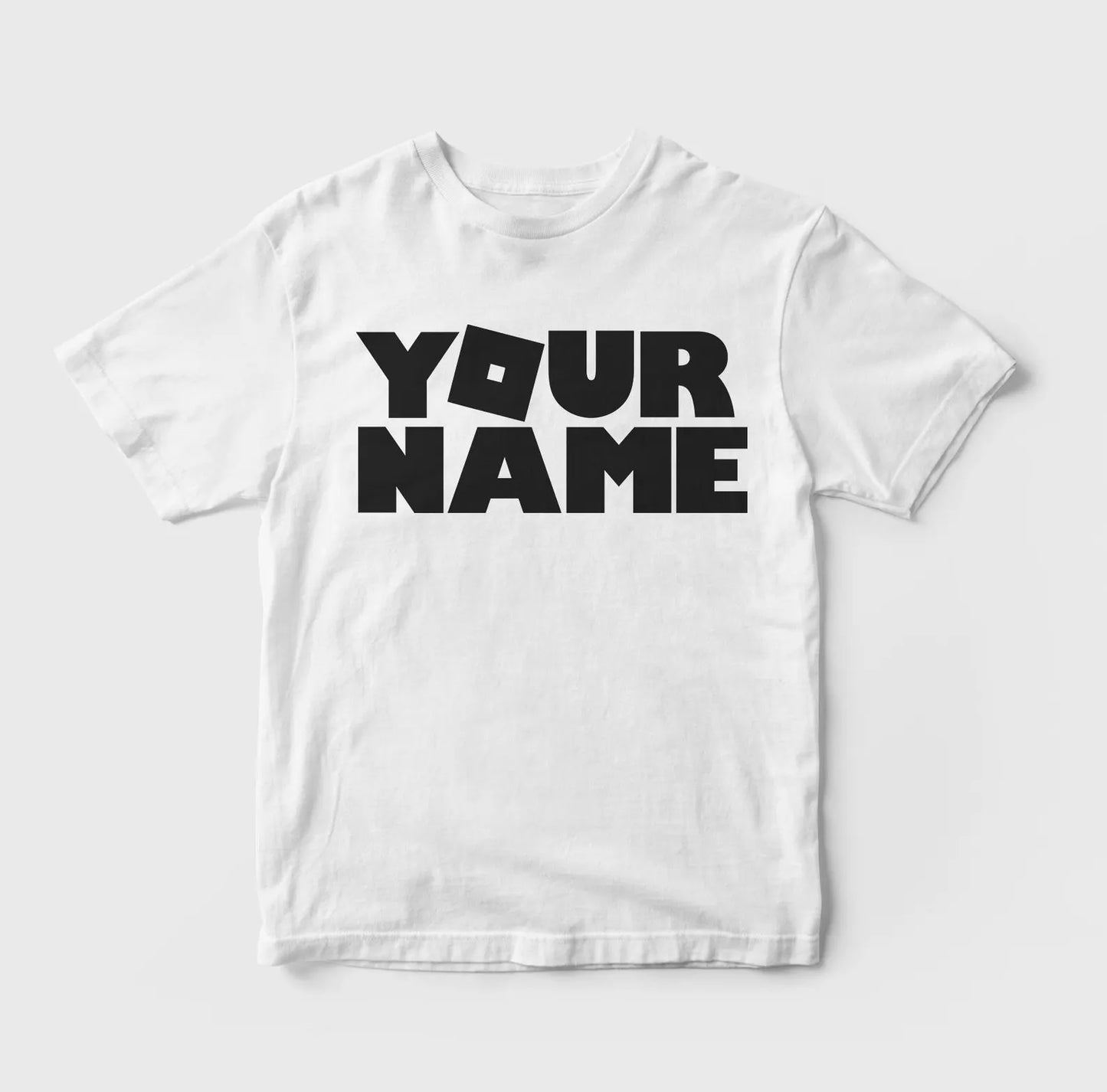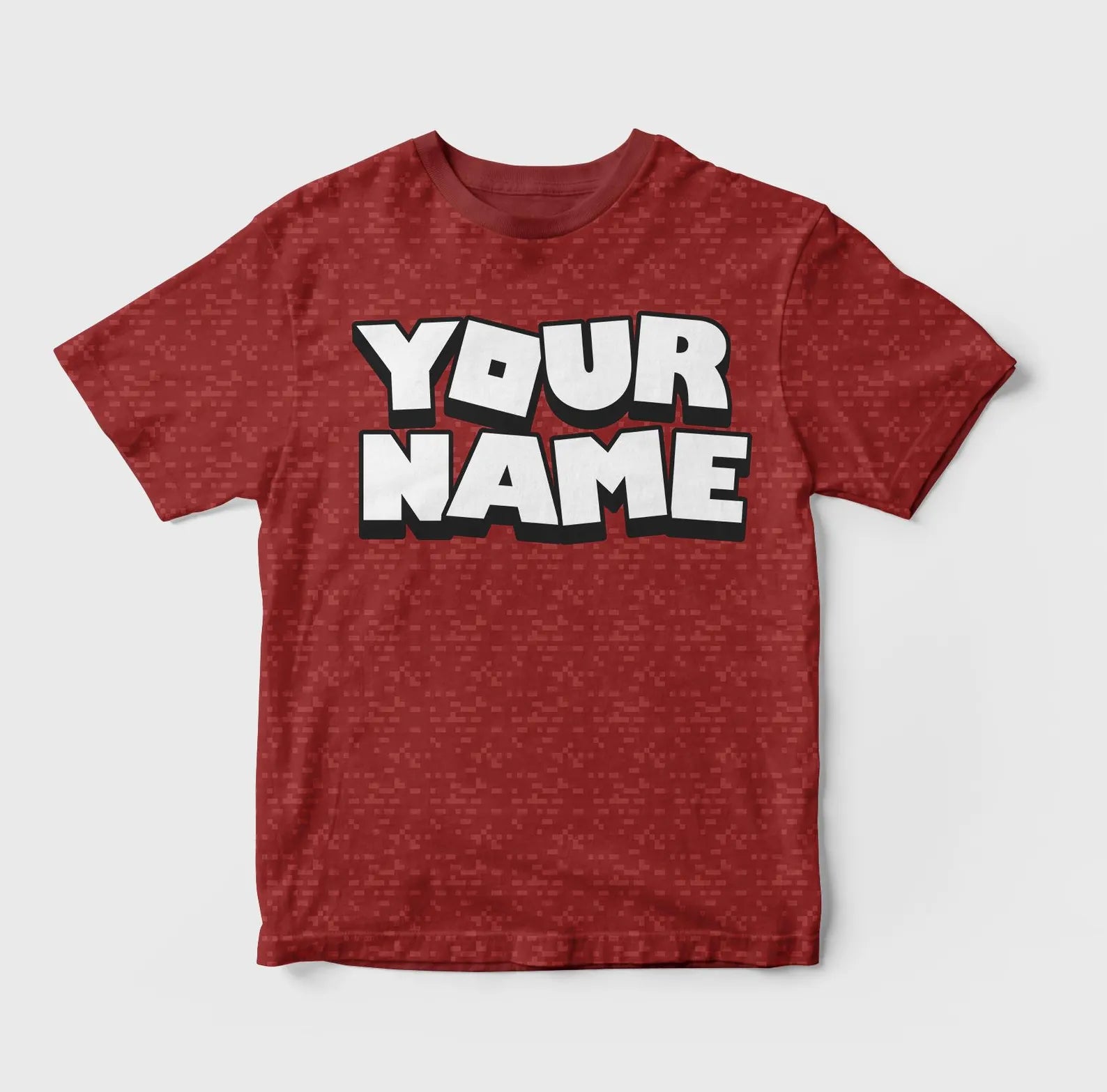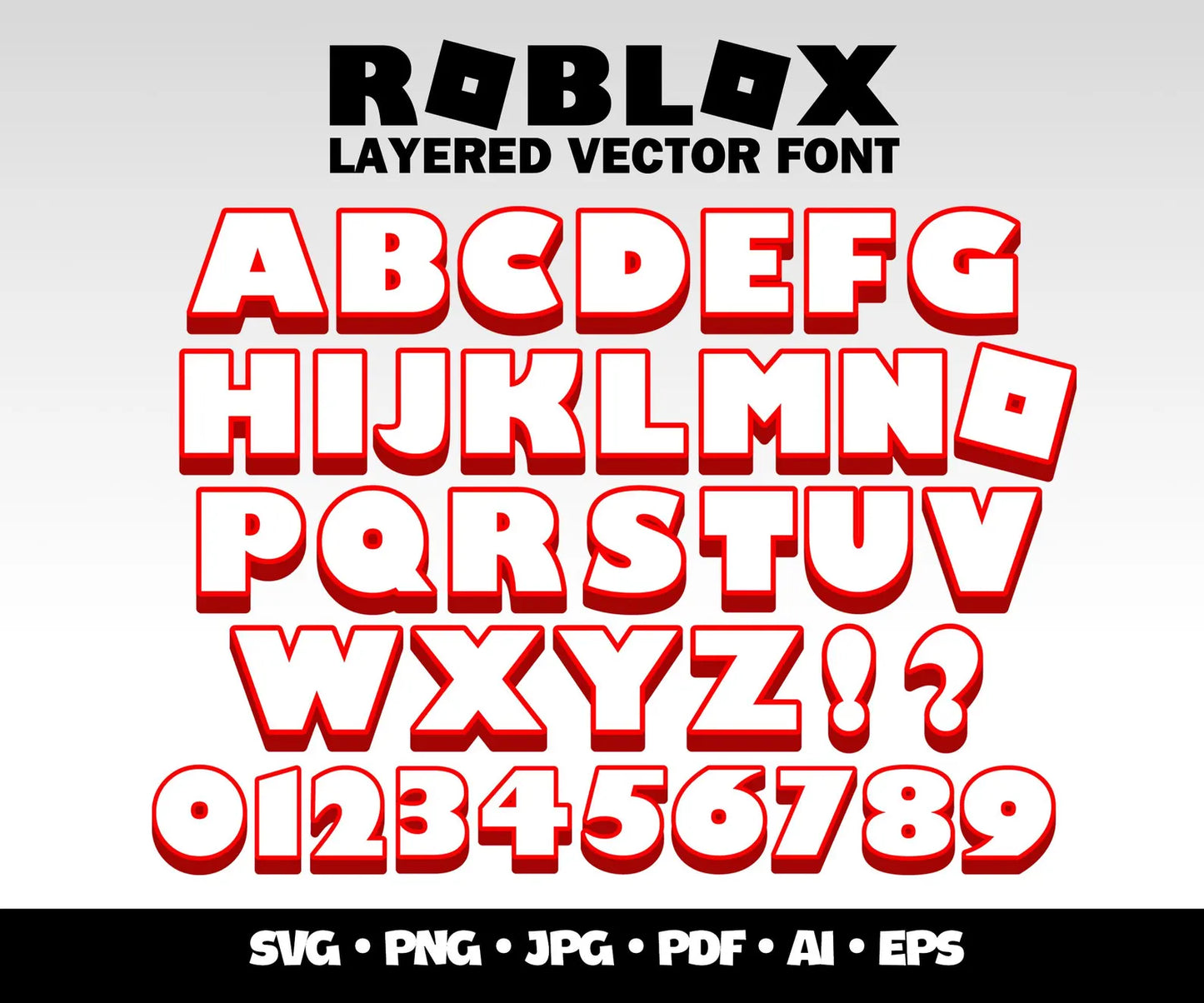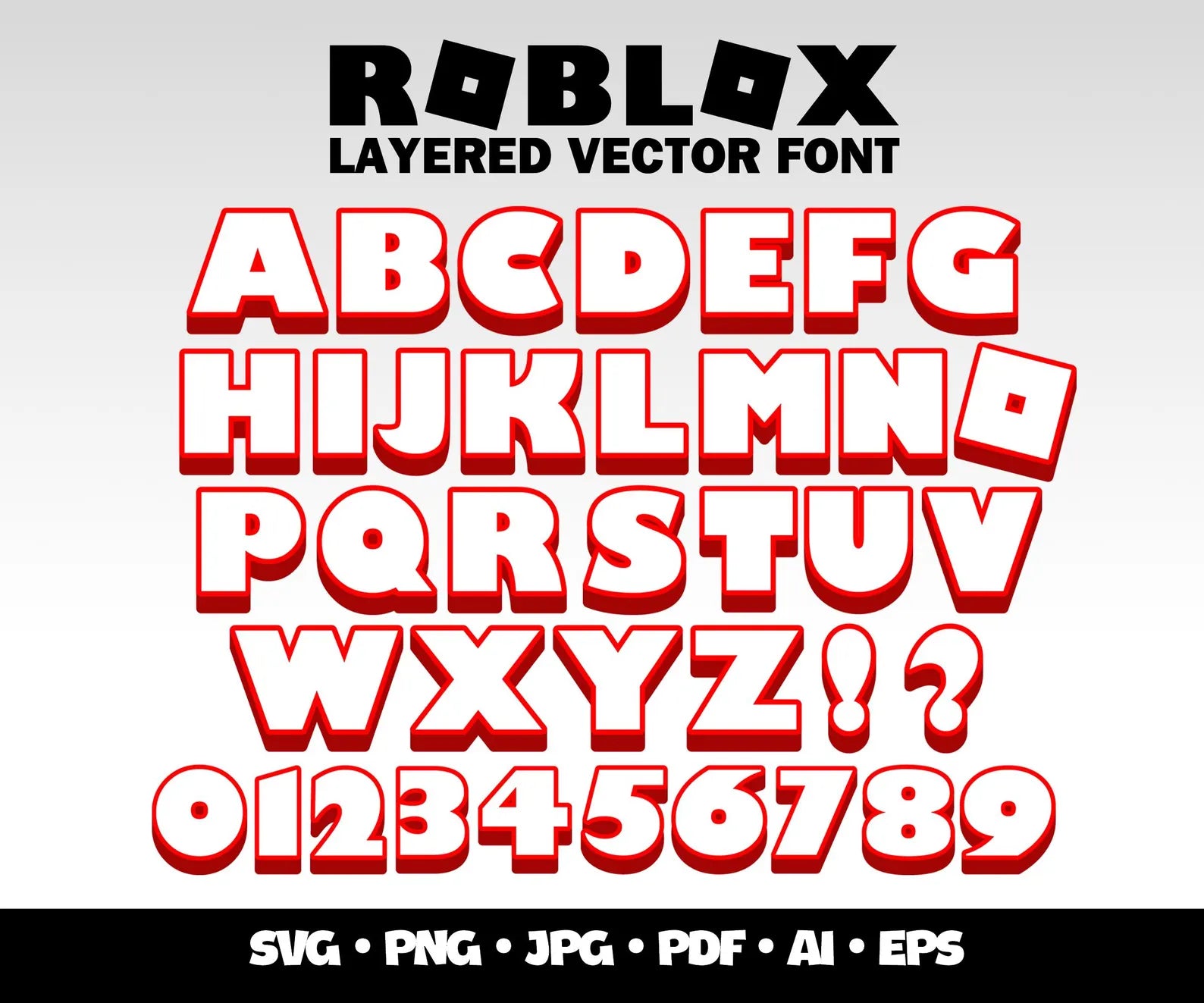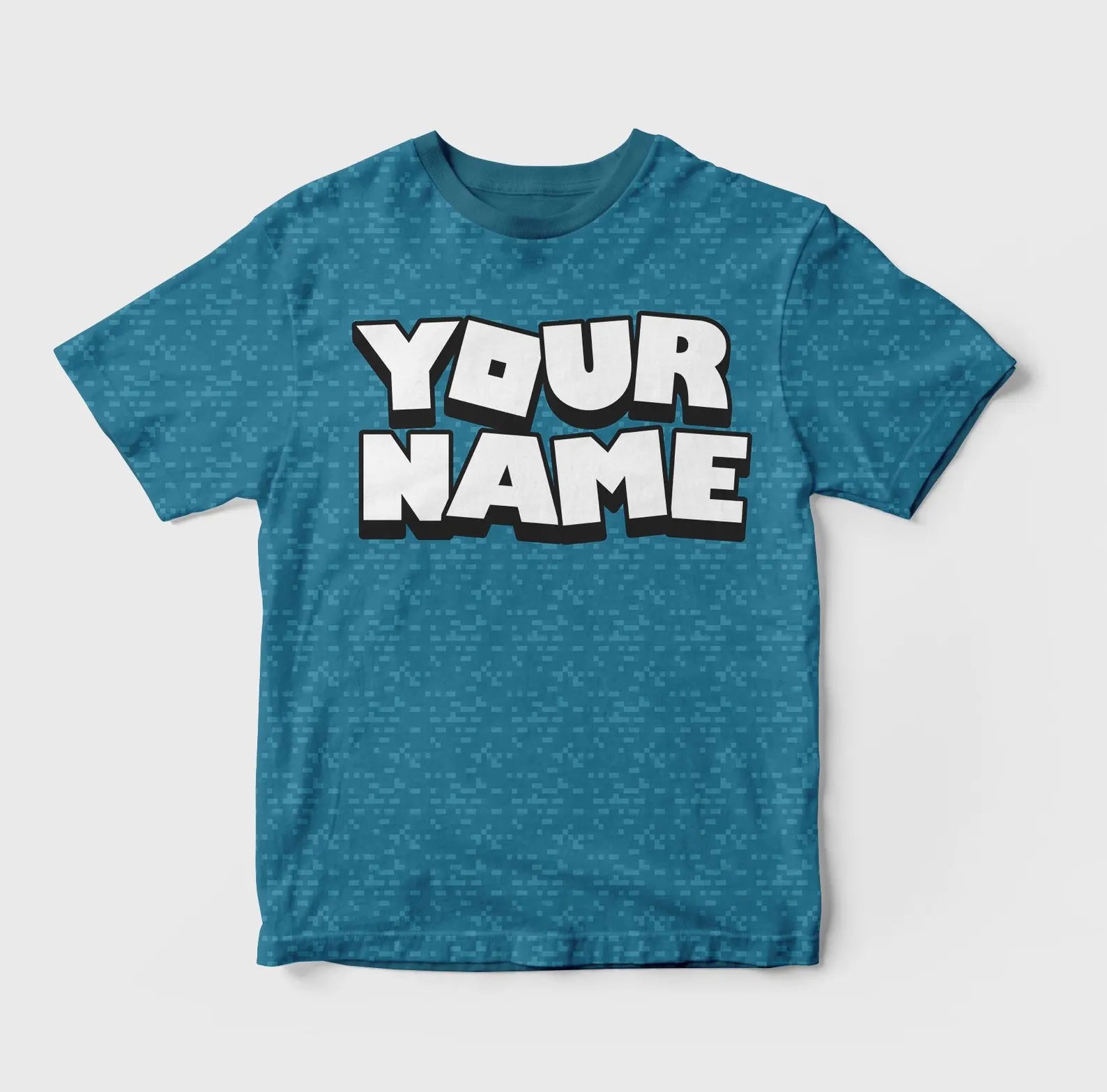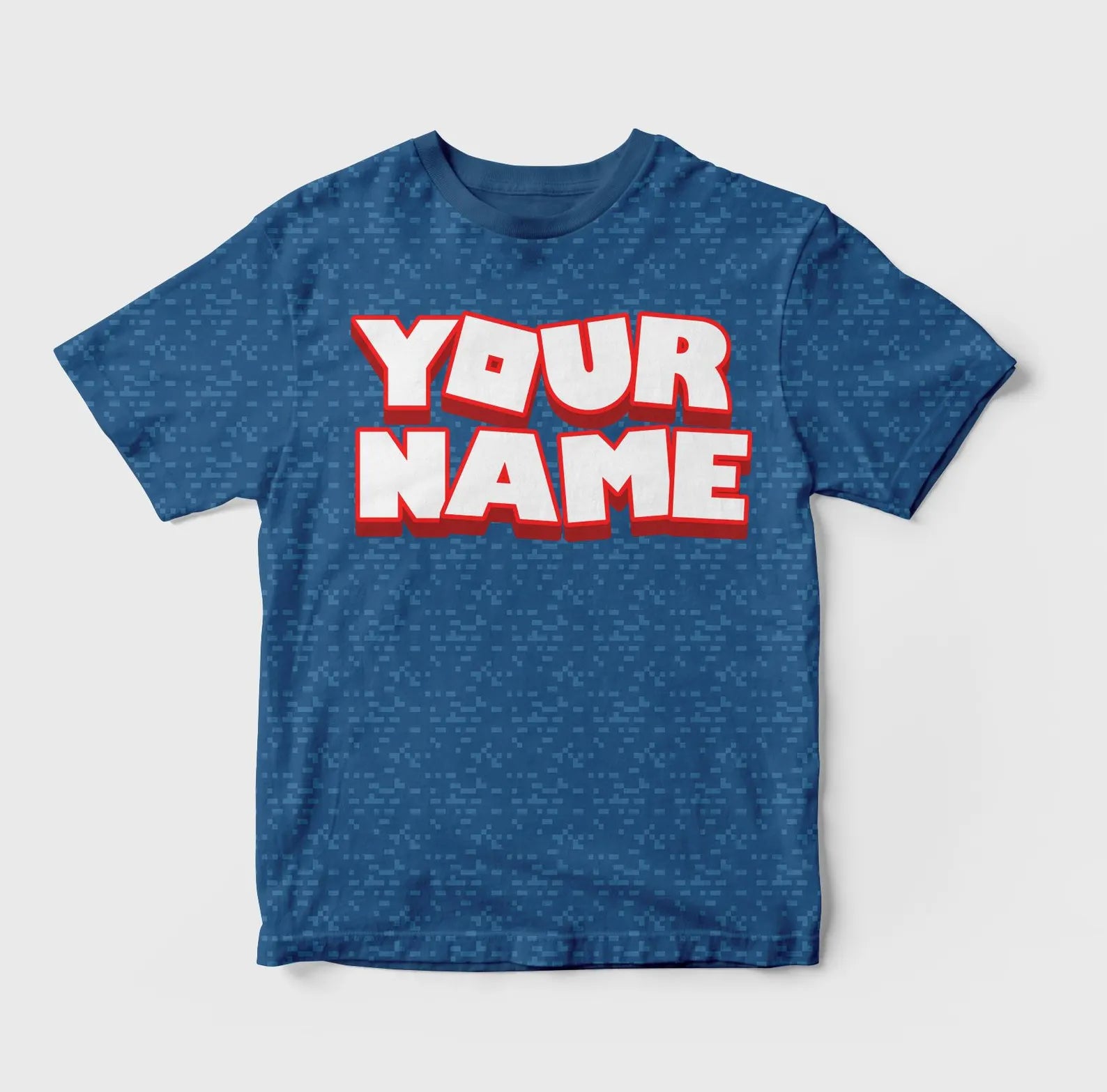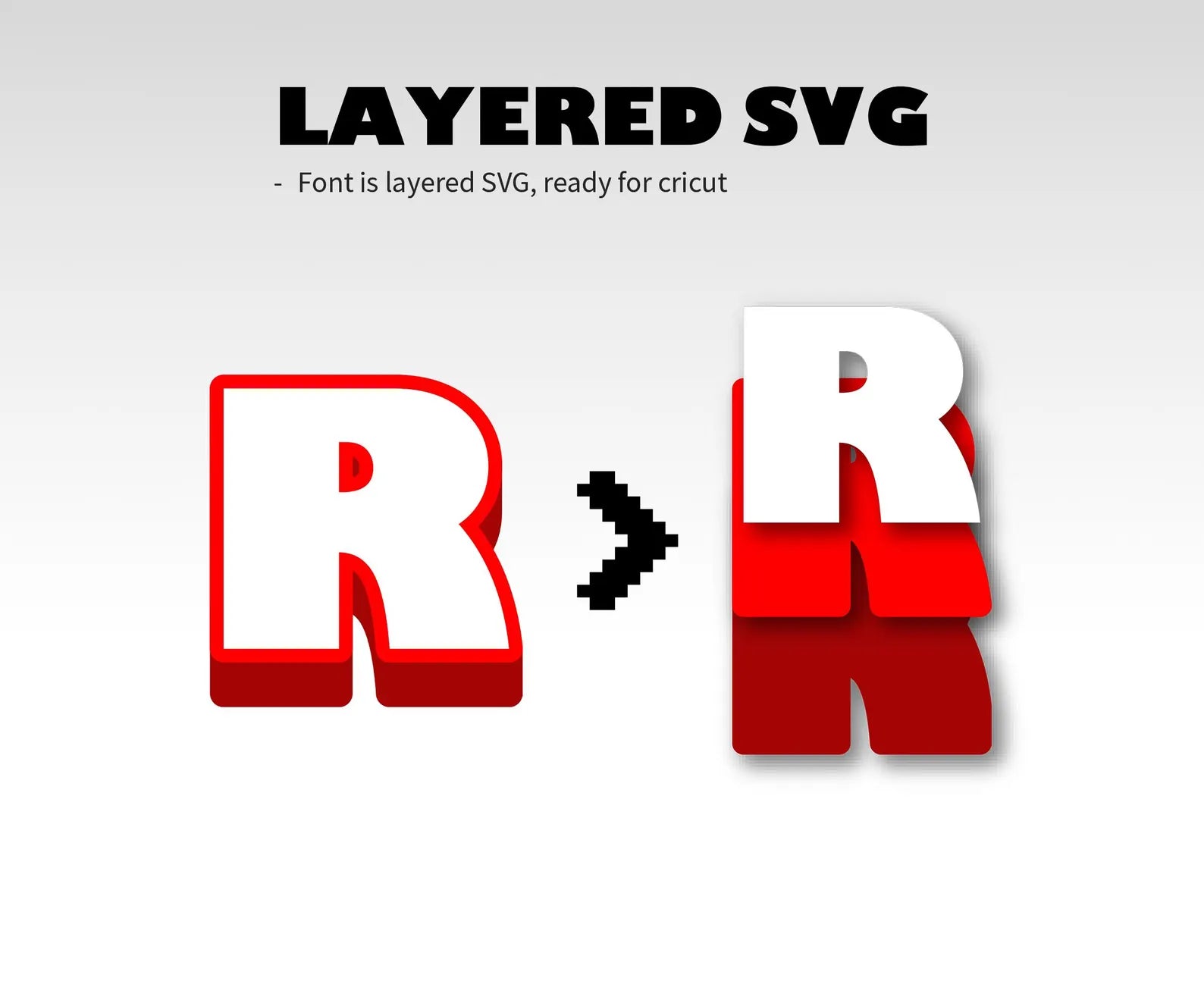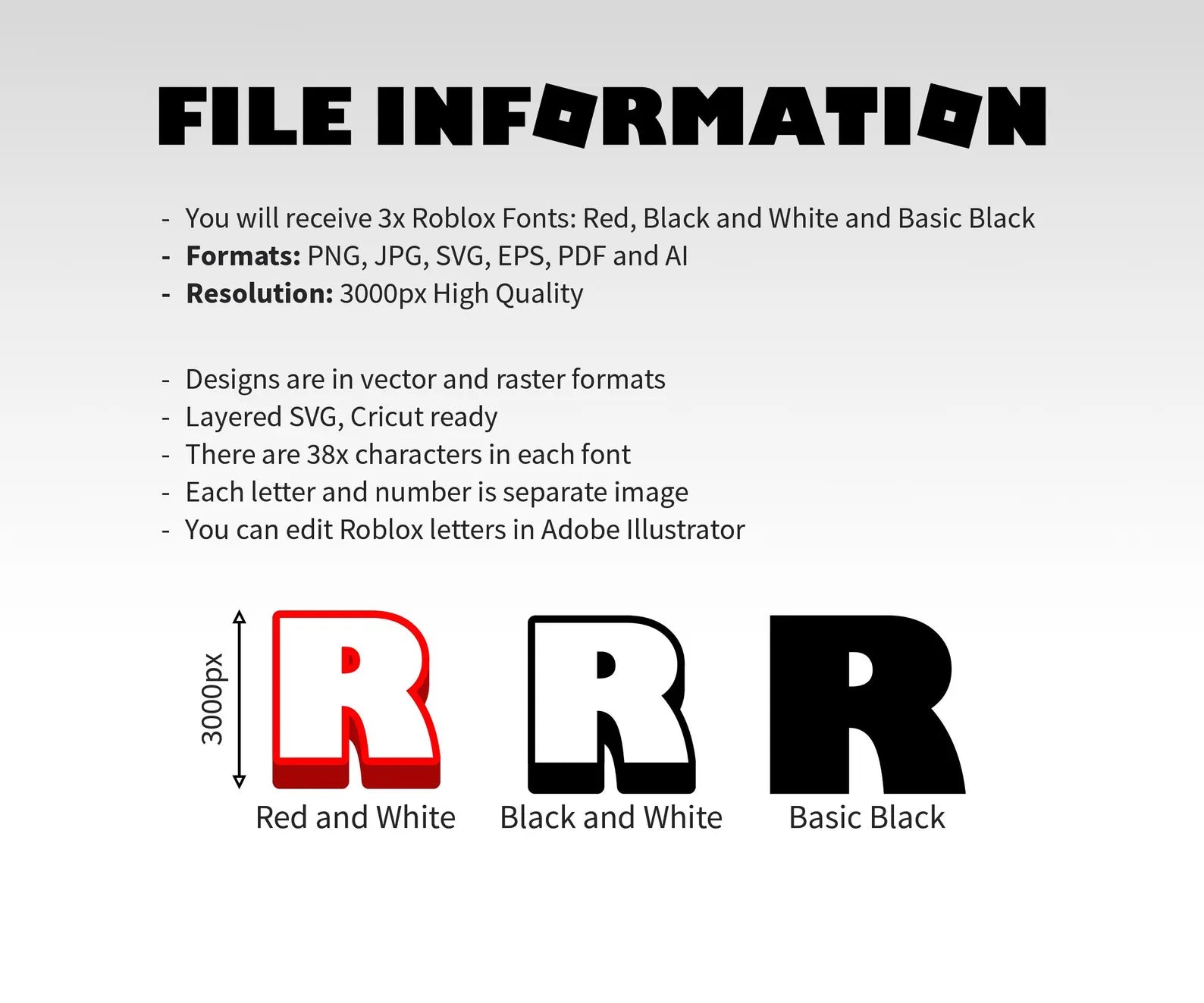
Roblox Font SVG Bundle, Roblox Letters Png, Roblox Alphabet Layered Svg, Gaming Alphabet Letters Numbers Set
Roblox Fonts SVG / PNG Bundle
3x Roblox Fonts
- Red and White
- Black and White
- Black Color